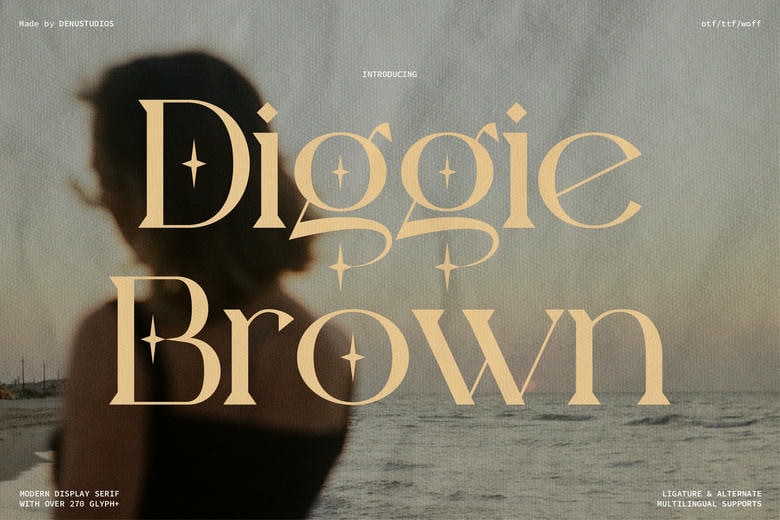
Diggie Brown Font
Diggie Brown is a modern display serif font with a classic charm and unique ligature design. With over 270 glyphs and multilingual support, it’s perfect for elegant branding, wedding invitations, high-end fashion, and editorial projects.
Diggie Brown Serif Font